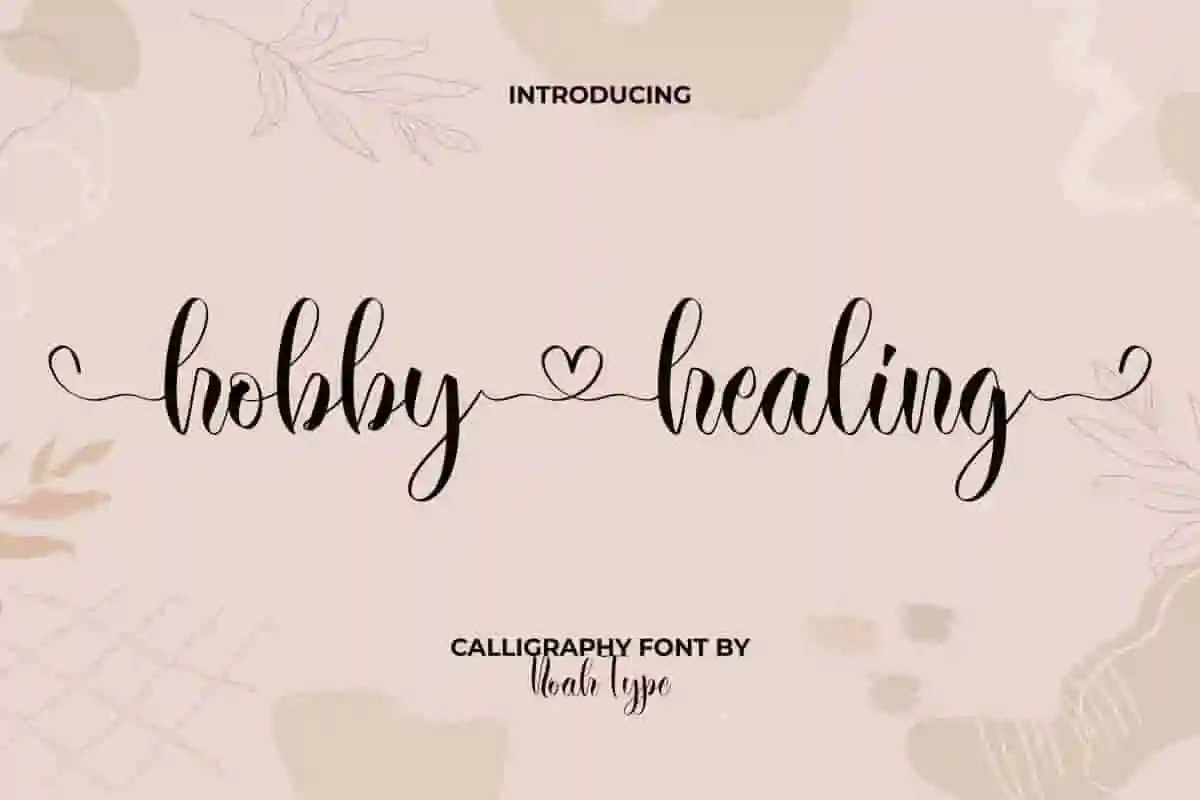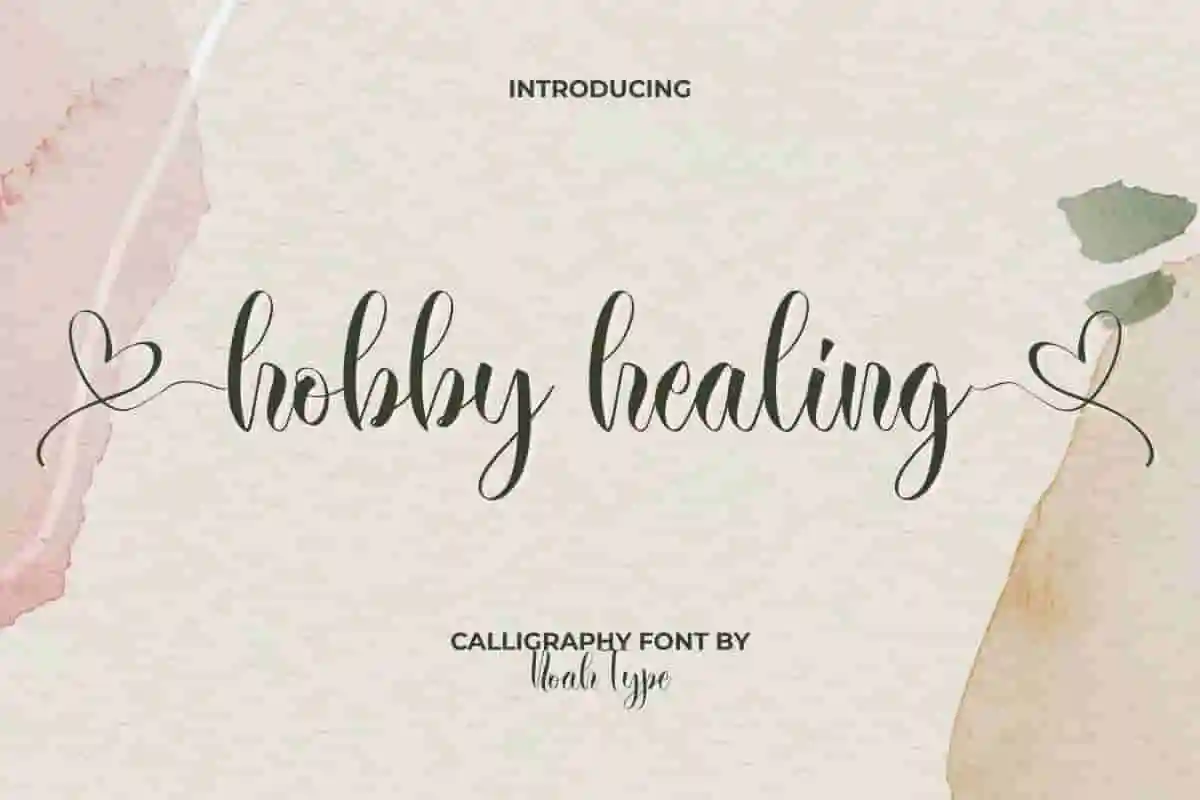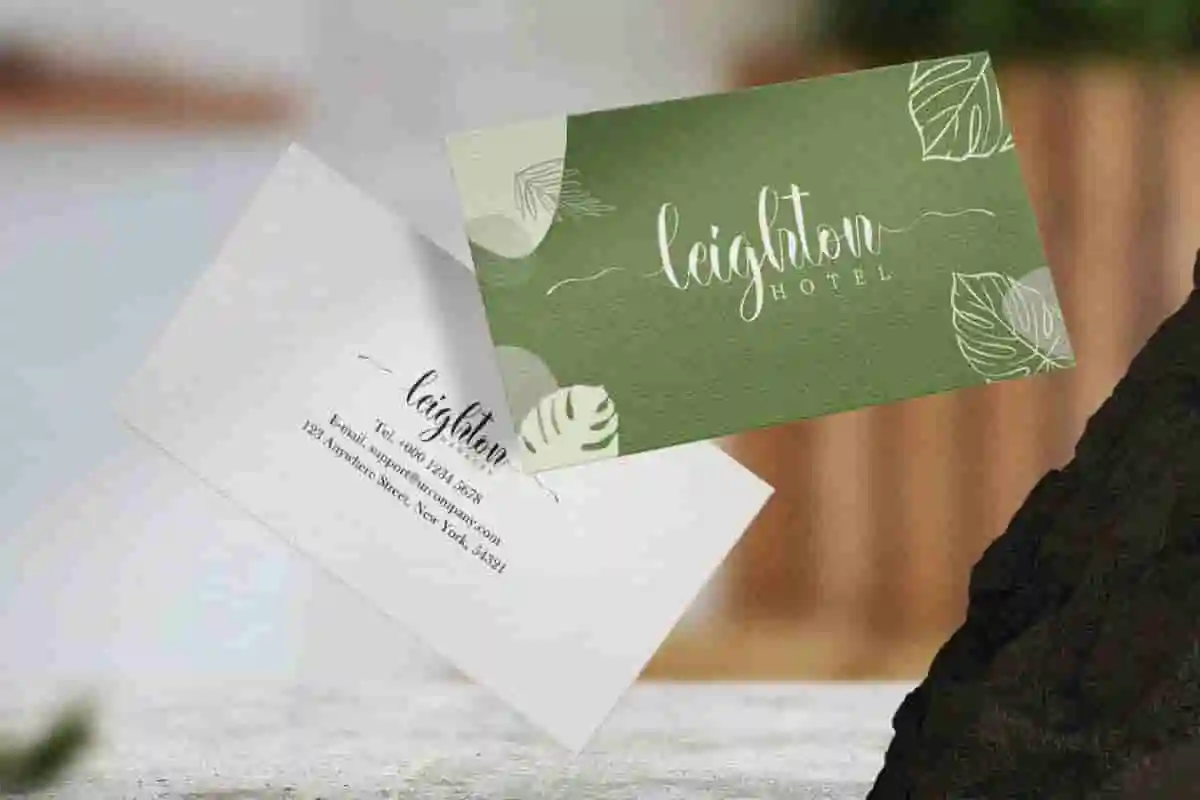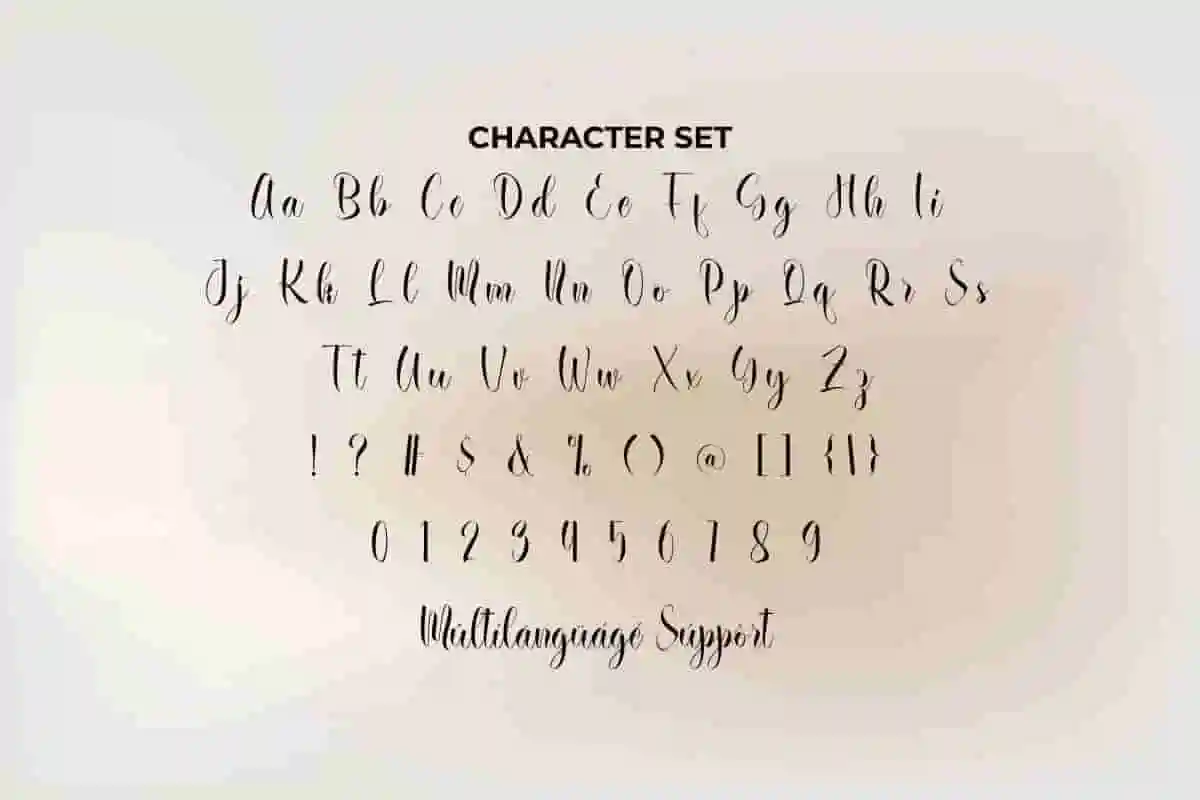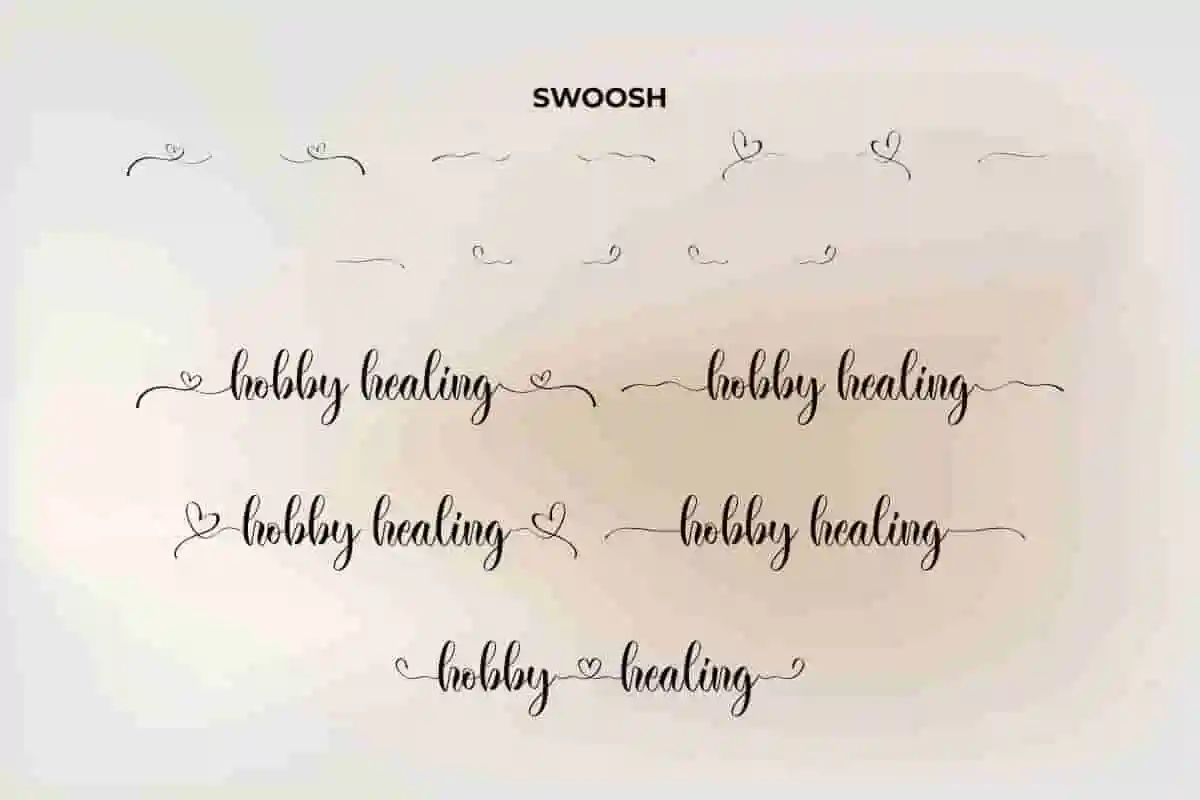
Hobby Healing Font is a lovely calligraphy font by NoahType with romantic love theme. This font is made of beautiful waving lines that will delight your eyes to produce stunning designs, such as business card, custom design, invitation, label, magazine catalog, menu, poster, product packaging, quotes, watermark, website, and more!
Hobby Healing Font includes full set of Uppercase and Lowercase Basic Characters, Numerals, and Punctuation. It also contain Ligature and Swoosh characters that will add perfection and making it suitable for many industries, such as cosmetic, fashion, florist, furniture, interior design, jewelry and accessories, perfume, skincare, spa and salon, wedding organizer, etc.
Bring timeless beauty and sophistication to your designs with Hobby Healing Calligraphy Font — a stunning handwritten typeface crafted to inspire creativity and elegance. This exquisite font blends graceful curves, fluid strokes, and a natural handwritten charm, making it the perfect choice for projects that demand a touch of class.
With its timeless style, Hobby Healing Calligraphy Font effortlessly transforms ordinary text into a captivating work of art. It’s a designer’s dream for projects that need both beauty and professionalism. From delicate save-the-date cards to bold logo designs, this font adapts seamlessly to your vision.